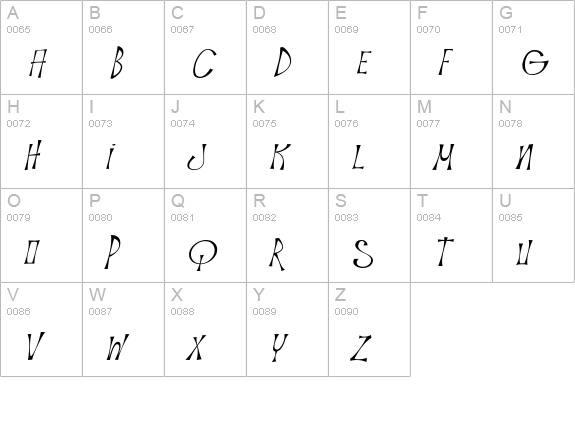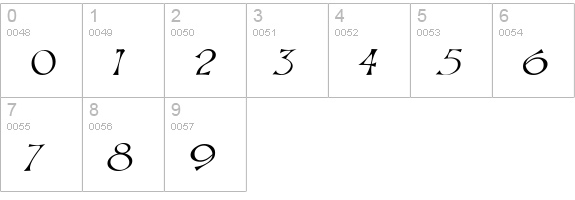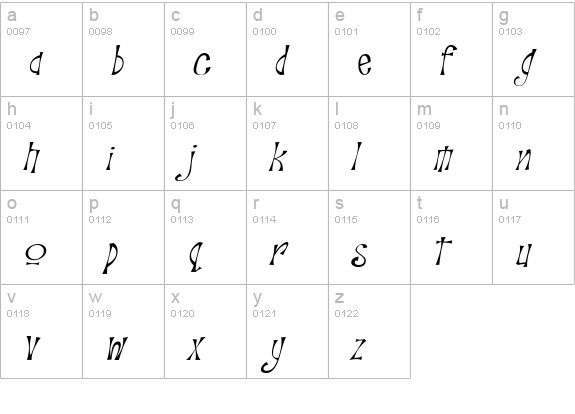
Troutkings BTN Light Oblique Font Details
Troutkings BTN Light Oblique is a refined, elegant, italic variant in the Troutkings typeface family \xE2\x80\x94 well suited to elegant body text, refined sub-headings, and luxury branding.
Troutkings BTN Light Oblique font is a stunning and versatile typeface that effortlessly combines elegance with a touch of playfulness. Its sleek and slender letterforms exude a sense of modernity, making it perfect for a wide range of design projects. This font is designed with utmost attention to detail, resulting in a harmonious blend of curves and angles that create a visually pleasing aesthetic. Its oblique slant adds a unique twist, giving your text a dynamic and energetic appearance. Troutkings BTN Light Oblique font is incredibly easy to read, making it an excellent choice for both large headlines and small body text. Its legibility ensures that your message will be conveyed effectively, captivating your audience with its clarity. One of the best aspects of this font is that it is freely available to download at FontsMarket.com. This means that you can enjoy the beauty and functionality of Troutkings BTN Light Oblique font without any cost. Whether you are a professional designer or an aspiring creative, this font provides you with the opportunity to enhance your projects with its distinctive charm. So why wait? Embrace the elegance and versatility of Troutkings BTN Light Oblique font today. Head over to FontsMarket.com and discover the endless possibilities that this font offers. Unleash your creativity and elevate your designs with this captivating typeface that is sure to leave a lasting impression.